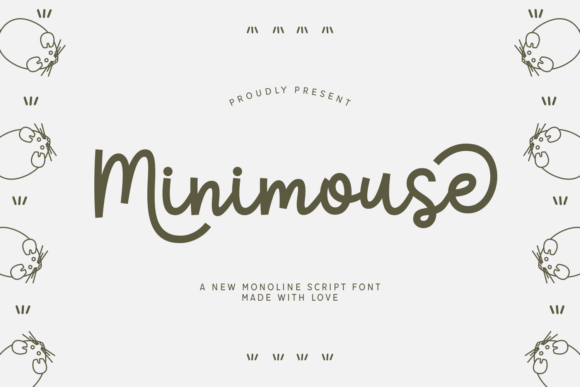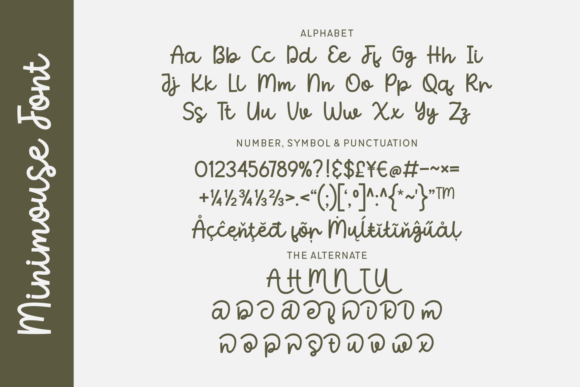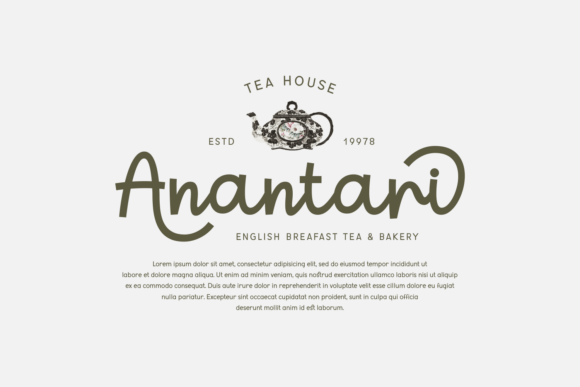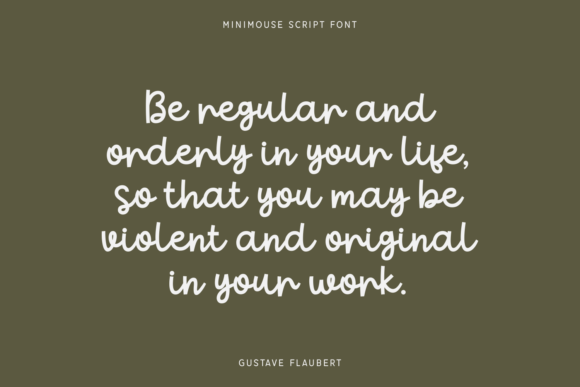
Minimouse Font: A Cute Handwritten Script for Social Media & Cricut
About the Minimouse Font
Let us introduce you to Minimouse Font, where timeless design meets modern craftsmanship. Minimouse is a playful, single-line script font with a smooth, handwritten style. It’s easy to read, with flowing, connected letters that give it a friendly, personal touch. Perfect for fun designs like logos, invitations, or social media posts.
Minimouse excels in applications requiring a lighthearted and approachable feel, such as logos for children’s products, wedding invitations, or social media graphics. Its legibility makes it suitable for short headlines or quotes, but its script nature limits its use for large blocks of text or body copy. Avoid using it for UI elements or situations demanding high readability at small sizes.
Pairing Minimouse with a clean sans-serif like Lato or Open Sans provides a strong contrast, balancing its playful script with a modern, legible counterpart. For a more vintage feel, consider pairing it with a serif like Playfair Display, creating a sophisticated yet friendly combination. Alternatively, a geometric sans-serif like Montserrat could offer a contemporary and structured counterpoint.
Minimouse’s overall personality is best described as friendly and approachable, with a touch of whimsy. It’s ideal for brands targeting a young, fun-loving audience or those seeking a personal, handwritten feel in their visual identity.
Minimouse Font Example